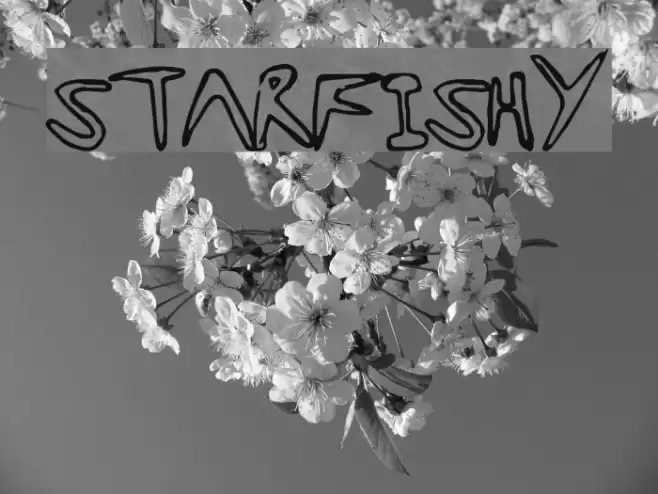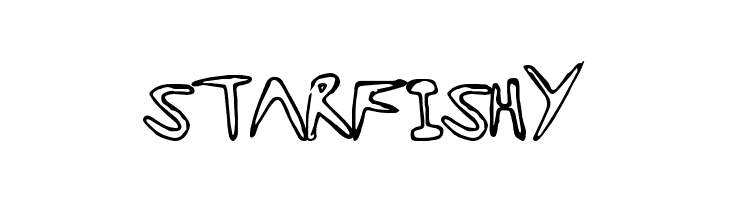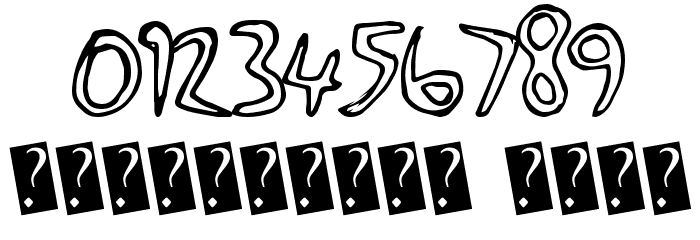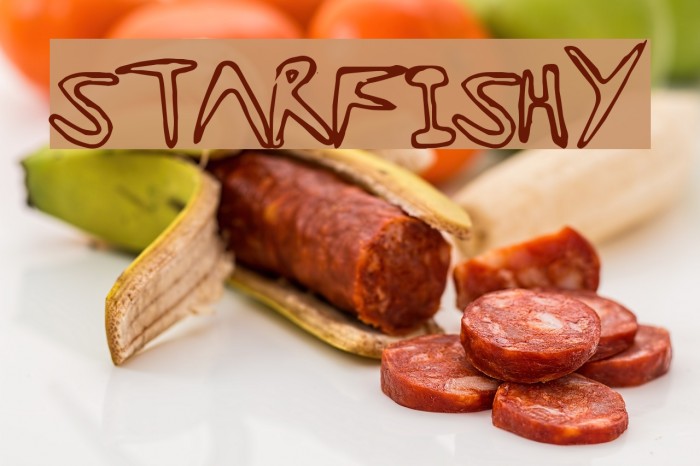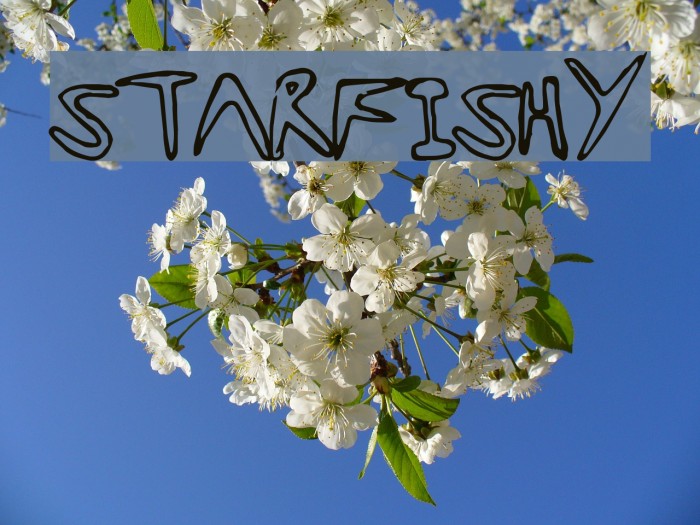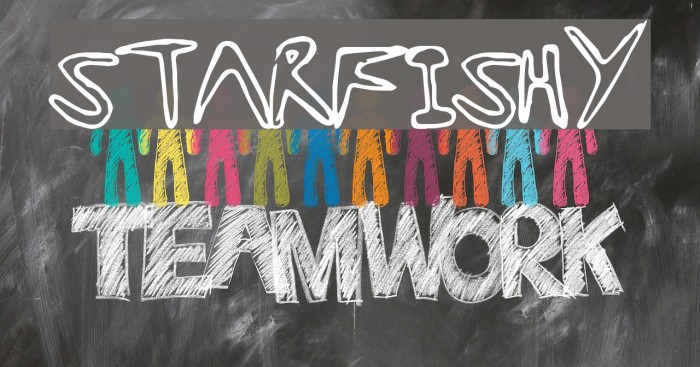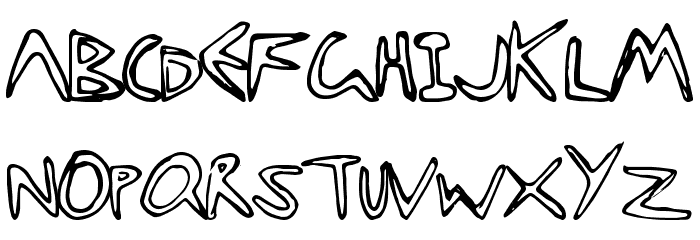
StarFishy Font
StarFishy Description
This font features a playful and energetic style, characterized by its bold, hand-drawn appearance. Each letter is crafted with a dynamic, flowing line that gives the impression of movement and spontaneity. The strokes are thick and uneven, adding to the casual and informal feel. The uppercase and lowercase letters maintain a consistent style, with rounded edges and a slightly tilted orientation. Numbers and special characters follow the same lively design, ensuring a cohesive look across all text elements. This font is perfect for projects that require a fun and approachable aesthetic.
A bold, hand-drawn font with a playful and energetic style from Cartoon fonts.
- Proposed Projects: Ideal for children's books, comic strips, playful branding, and casual invitations.
- Use Case: Headlines, Logos, Informal Text